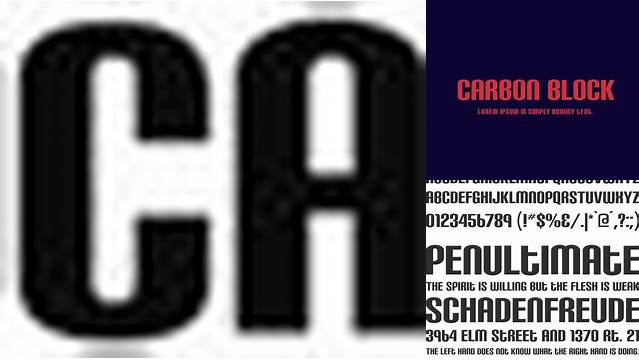
Carbon Block Font: Your Gateway to Bold Typography
Carbon Block font isn't just any typeface; it's a statement. It's got a strong, geometric vibe that immediately grabs attention. Think of it as the visual equivalent of a confident handshake. When you choose Carbon Block, you're saying, "Hey, I'm here, and I'm not afraid to be seen!" This font is perfect for headlines, titles, logos, and any design where you want to make a bold impact. It's clean, it's readable, and it's got a modern aesthetic that fits perfectly with current design trends. Whether you're working on a website, a poster, or a social media graphic, Carbon Block can elevate your design from "meh" to "wow" in an instant. Plus, the carbon block regular font free download option means you can experiment and play around with this powerful tool without spending a dime. Isn't that just awesome? The key to understanding Carbon Block's power lies in its simplicity. Its blocky structure and clean lines make it incredibly versatile. It's like a blank canvas that you can use to paint your message with confidence and style.
The Design Philosophy Behind Carbon Block
The design of the Carbon Block font is rooted in geometric principles, offering a blend of minimalism and impact. The font's structure leans heavily on the use of clean, straight lines and bold shapes, creating a sense of strength and stability. This design approach ensures that the font is highly legible, even at smaller sizes, making it ideal for a wide range of applications. The designers of Carbon Block likely drew inspiration from industrial design, architectural lettering, and even digital interfaces. The font’s robust appearance communicates a sense of reliability and modernity, which makes it perfect for brands and projects that aim to project these qualities. The design philosophy also extends to ensuring that the font is versatile and can be used in different contexts. The consistent weight and design of Carbon Block mean it's compatible with various design elements, from images to other typography. The decision to make the font available through a carbon block regular font free download is a nod to the importance of democratizing access to design tools. This allows more designers to create impactful work. In essence, Carbon Block is a testament to the power of simple, well-executed design principles. It shows how much can be achieved by focusing on clarity, boldness, and a modern aesthetic.
Why Carbon Block Stands Out in the Font Universe
In a world flooded with fonts, the Carbon Block font distinguishes itself through its unique blend of functionality and style. Unlike many other fonts that can feel cluttered or overly stylized, Carbon Block offers a clean, uncluttered look that is both modern and timeless. This clean aesthetic makes it exceptionally versatile. It can be effectively used in almost any design context, from corporate branding to personal projects. Its distinctive block-like structure sets it apart from other sans-serif fonts, which often rely on more traditional shapes. The boldness of Carbon Block makes it ideal for grabbing attention. It's perfect for headlines and titles where you want to make a strong statement. The carbon block regular font free download option also makes it easily accessible to designers of all skill levels and budgets. This means you don't have to spend a fortune to get access to professional-quality typography. The widespread availability of Carbon Block and its strong visual impact have cemented its place in the design community. Its modern aesthetic allows it to blend perfectly with contemporary design trends. Whether you need a font for a website, a poster, or a social media graphic, Carbon Block is always a solid choice. It's a testament to the idea that the best designs are often the simplest. It’s the combination of its unique style and ease of use that sets Carbon Block apart. This is why it's become a go-to choice for many designers.